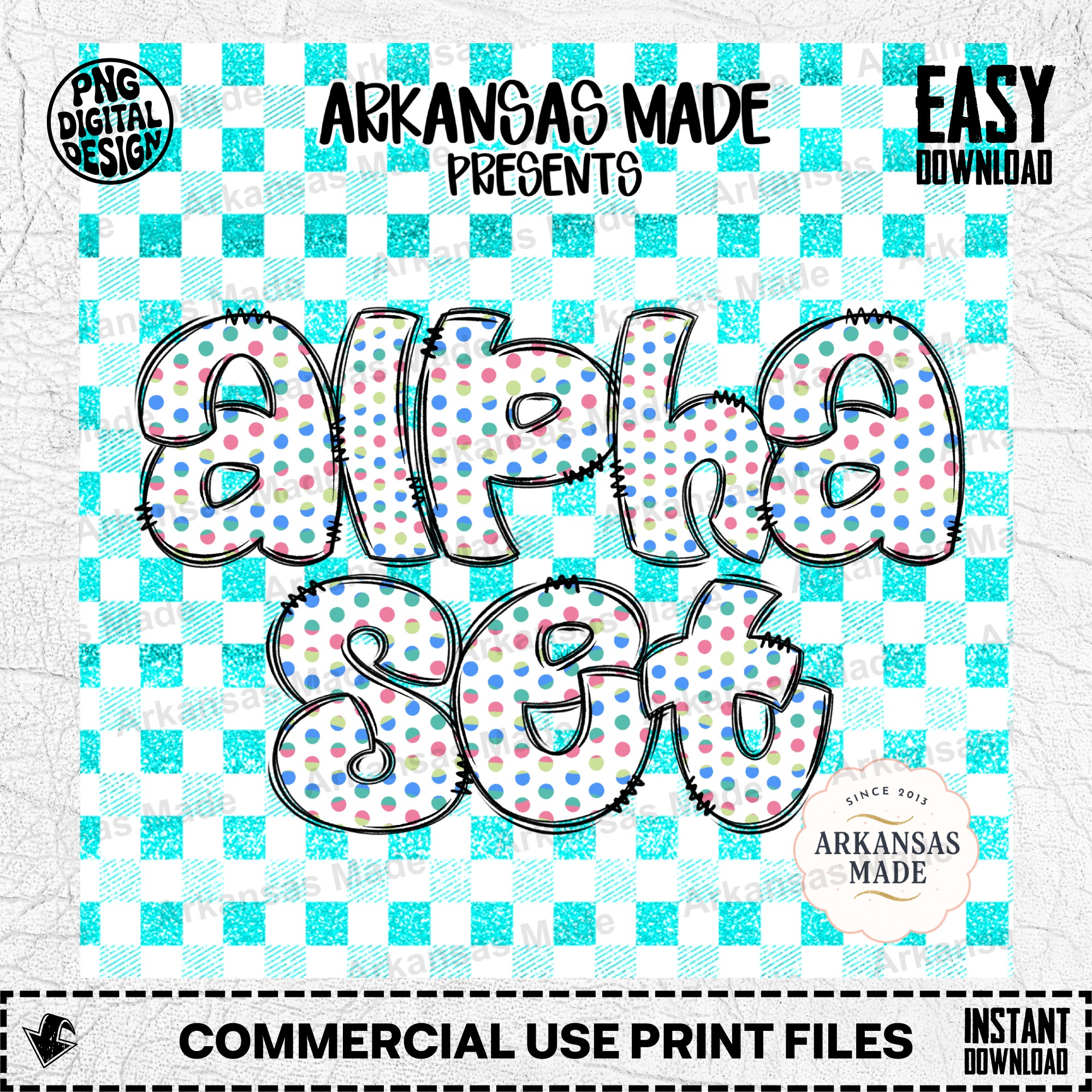
Polka Dot Alphabet PNG Set | Colorful Bubble Letters Alpha Pack for Sublimation & Crafting | Digital Download Font
Get creative with our vibrant Polka Dot Alphabet PNG Set! Perfect for sublimation designs, custom apparel, and playful crafting projects. This whimsical bubble letter alpha pack features a charming stitched-effect outline and printed colorful polka dots. Ideal for DIY crafters, teachers, parents, and small business owners looking to add a cute touch to personalized gifts, party decor, or educational materials. Elevate your designs with this fun, easy-to-use digital download for all ages!